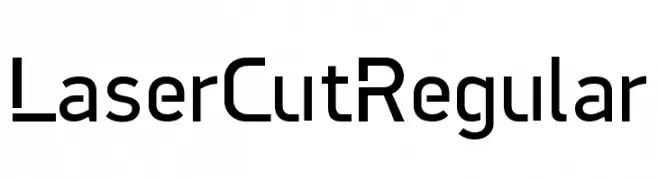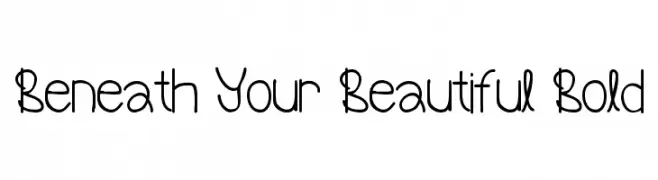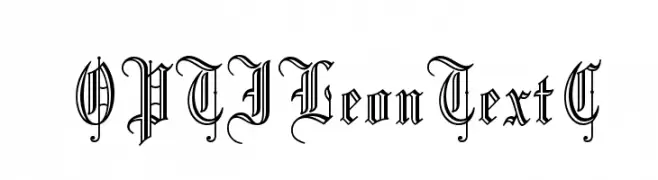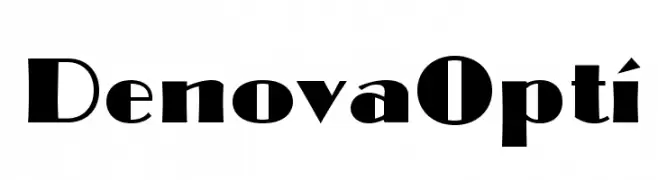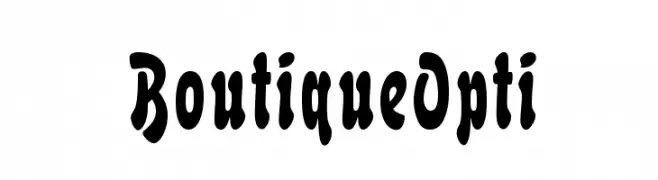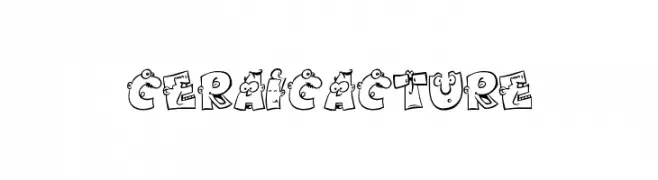
A playful, bold font with whimsical, cartoon-like characters.
A modern, geometric font with a futuristic and industrial design.
An ornate, Gothic-style font with intricate details and sharp, angular lines.
A bold, high-contrast font with modern serifs and elegant flourishes.
A refined, high-contrast serif font with elegant, narrow characters.
A bold, playful font with a retro vibe and rounded characters.
A bold, brush-style font with dynamic strokes and playful curves.